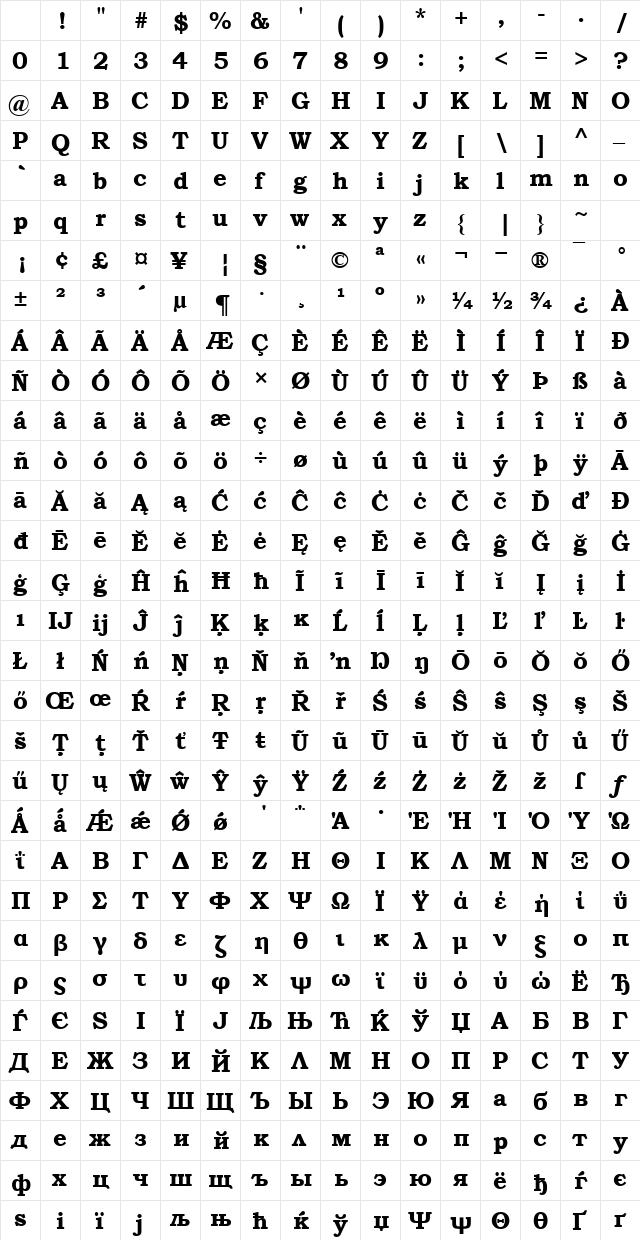
Complete Hu_Bookman Old Style Win95 Regular glyph index. Displaying only characters natively supported by Hu_Bookman Old Style Win95 Regular font.
Hu_Bookman Old Style Win95 is a composed and adaptable typeface that performs quietly and consistently across a wide range of design contexts.
Pro Tip: Use Hu_Bookman Old Style Win95 in both headline and body roles to test its range before committing to a single application.